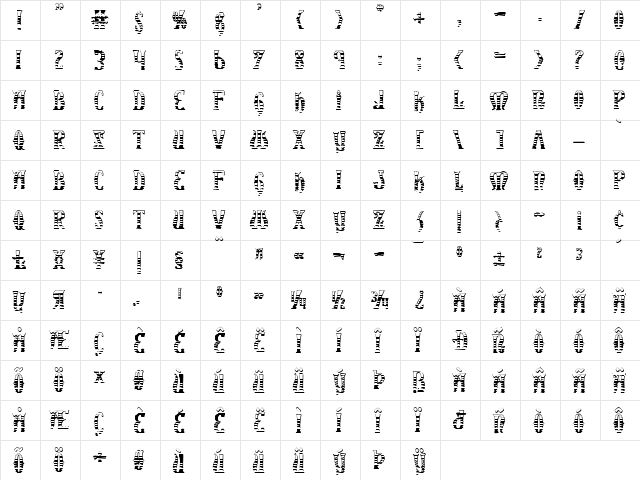
Xiphos Gradient Castle Gradient Castle
Design Context for Xiphos Gradient Castle Typeface
Xiphos Gradient Castle is a composed and adaptable typeface that performs quietly and consistently across a wide range of design contexts.